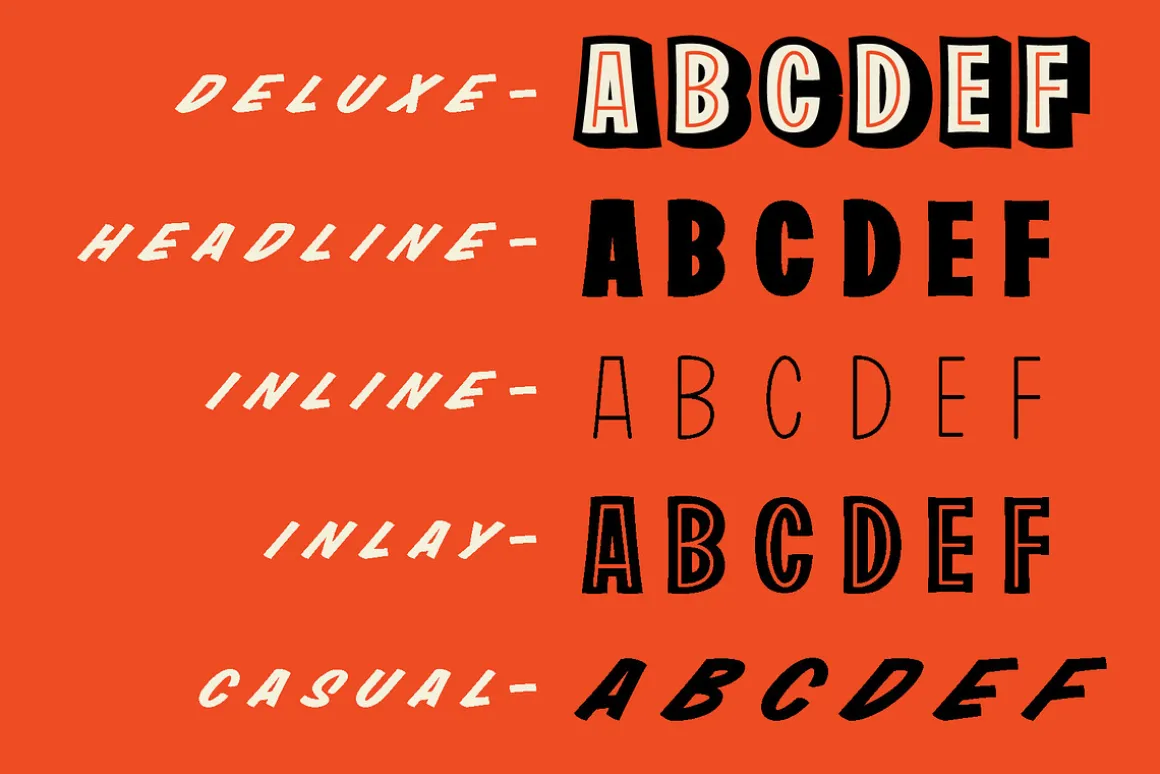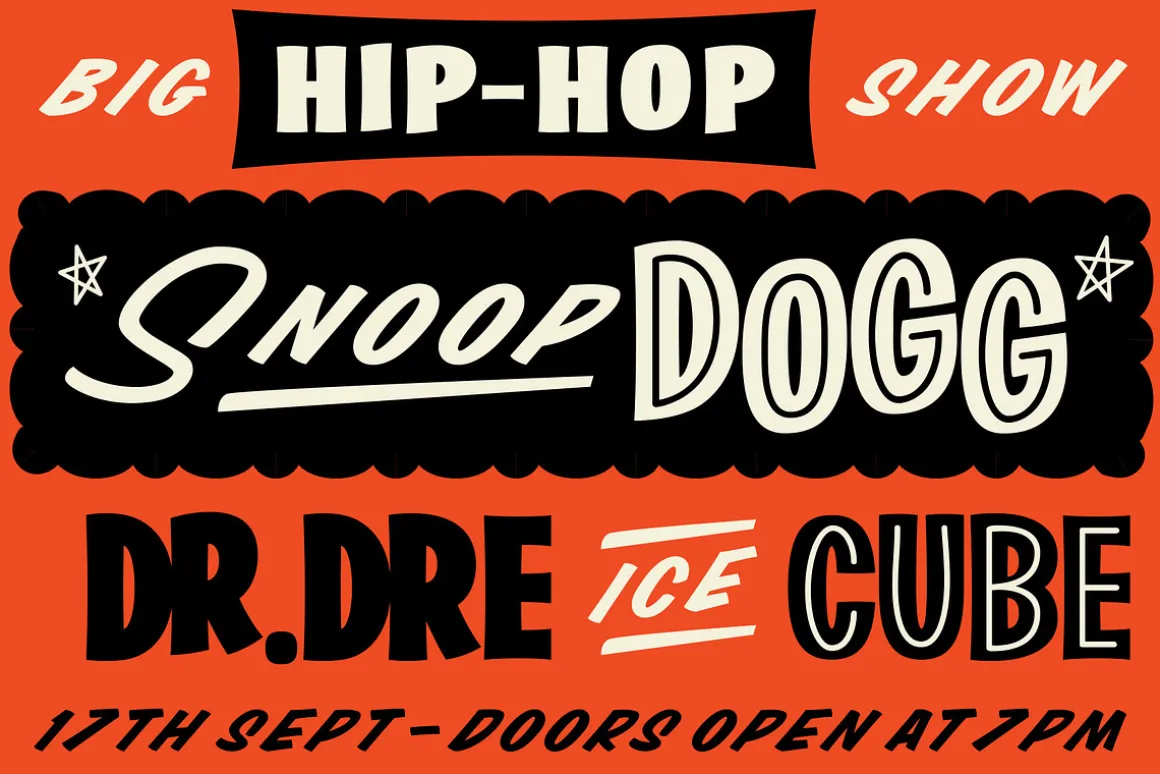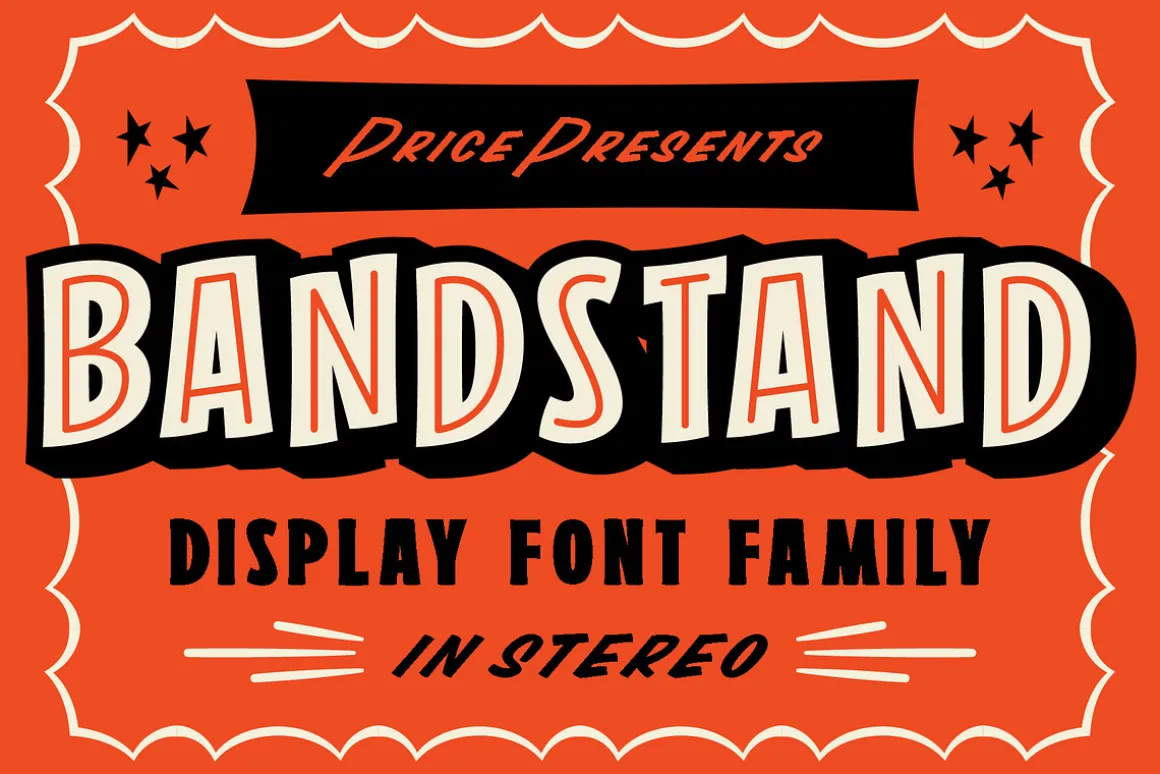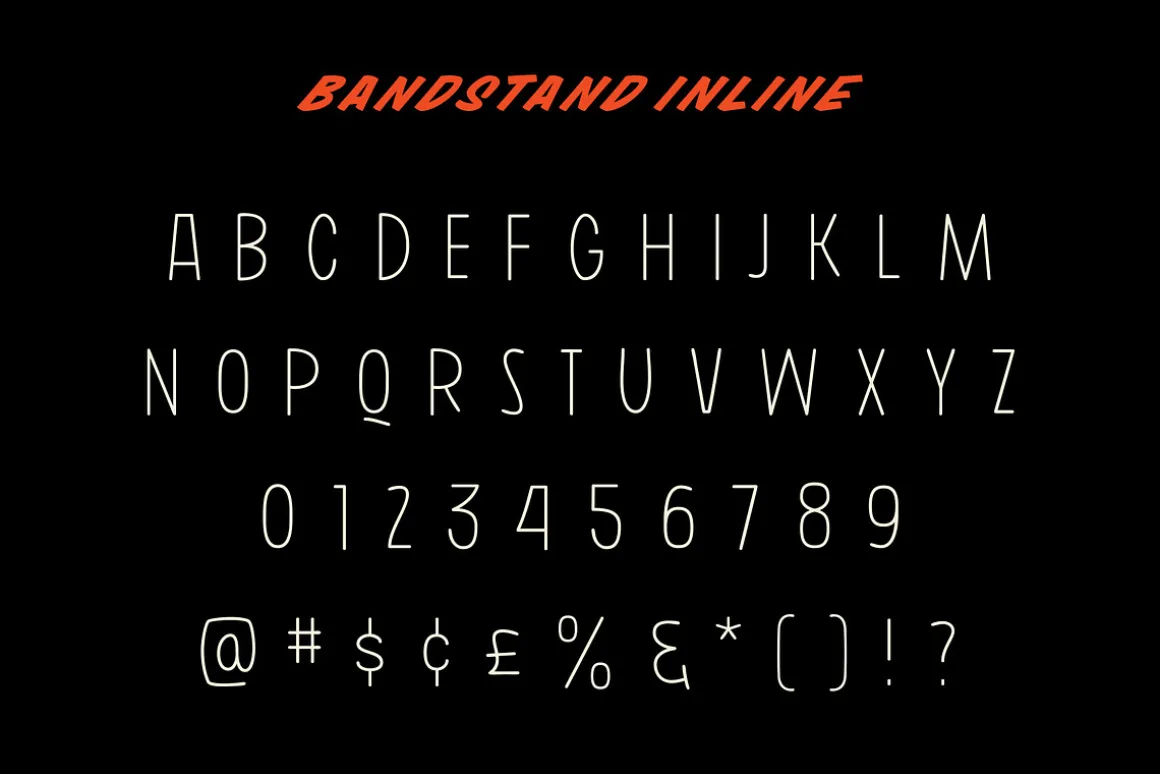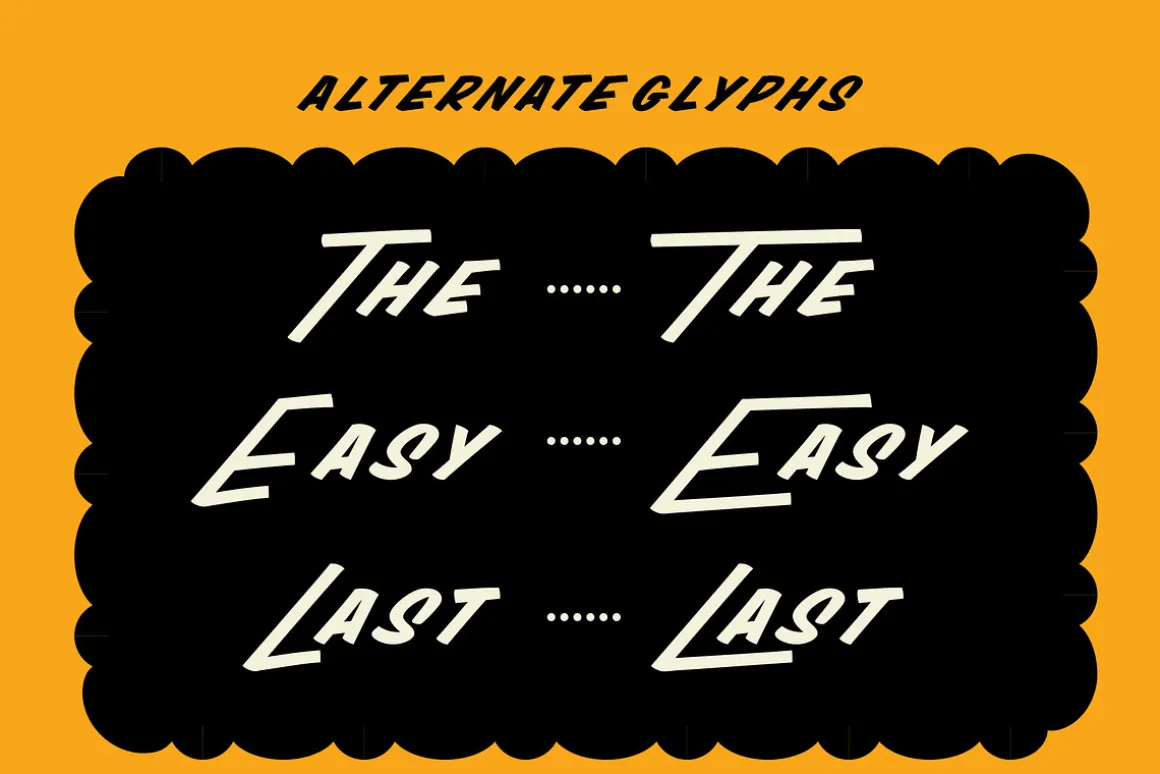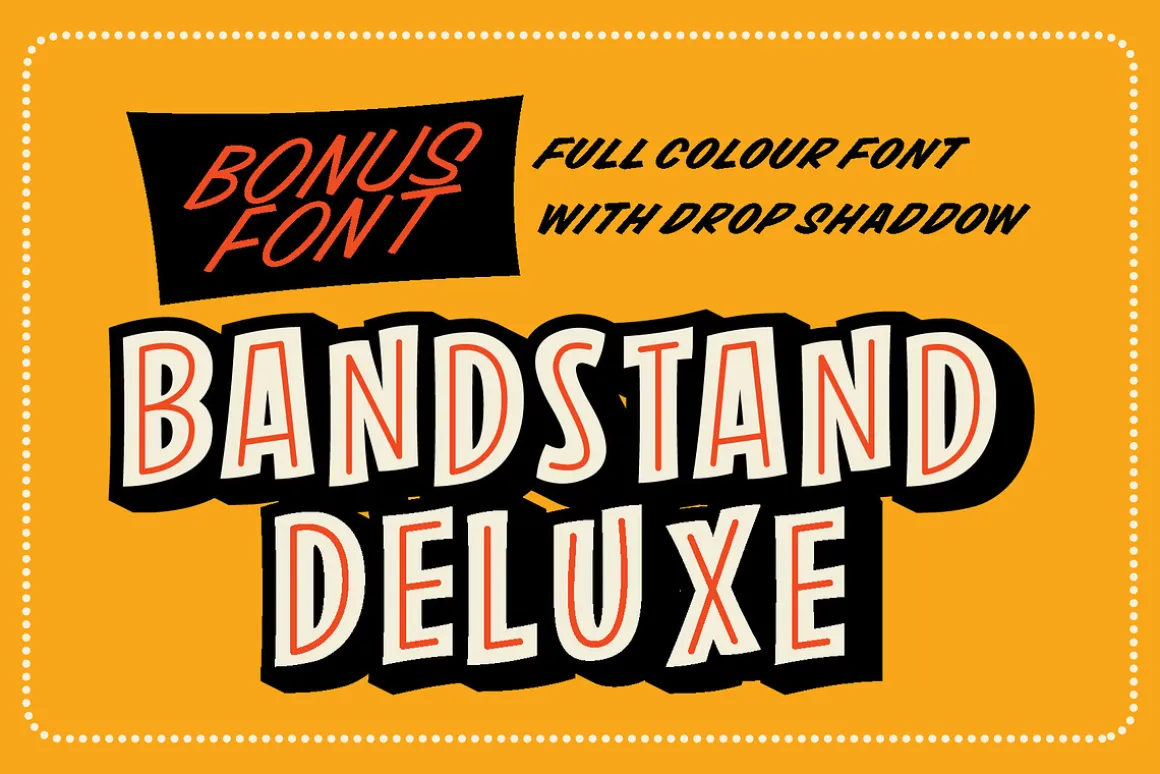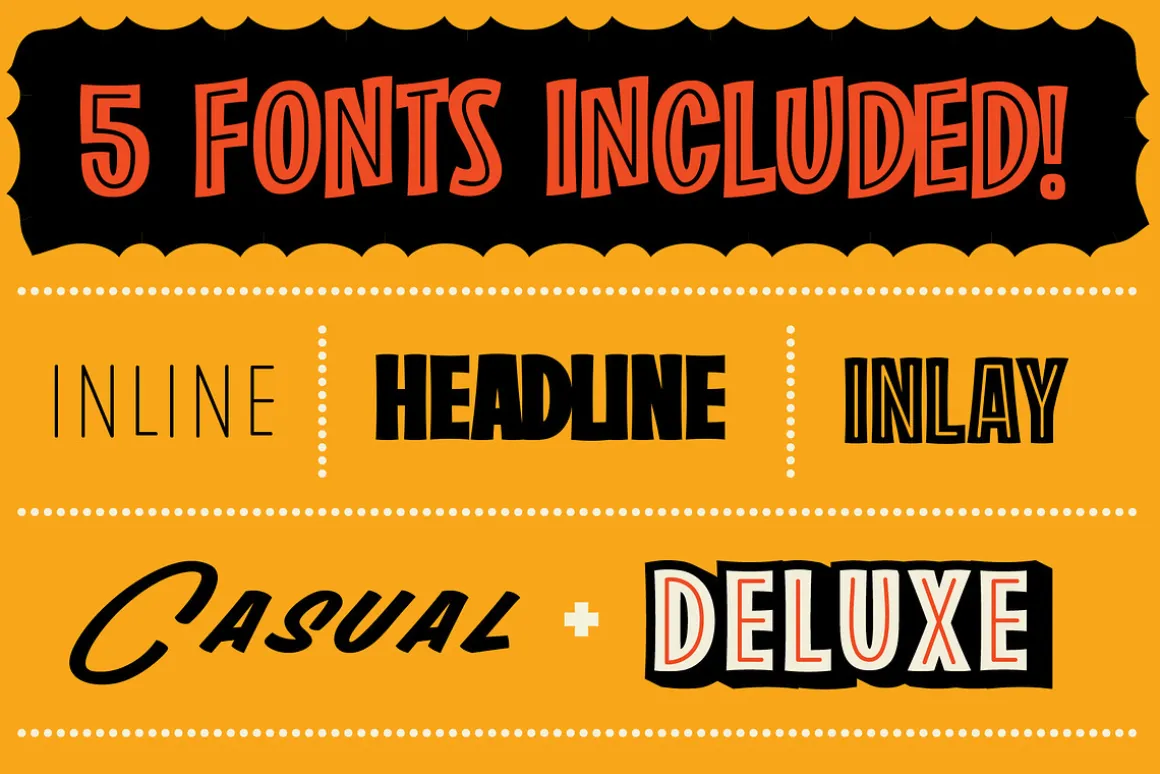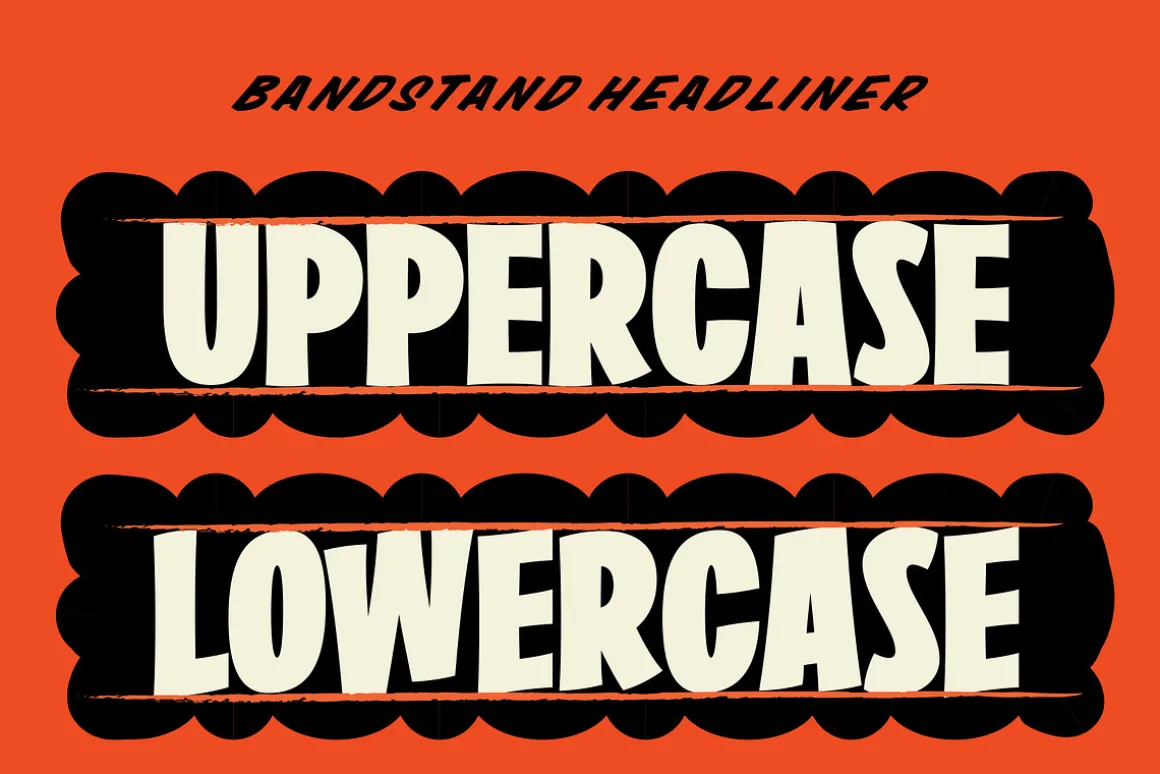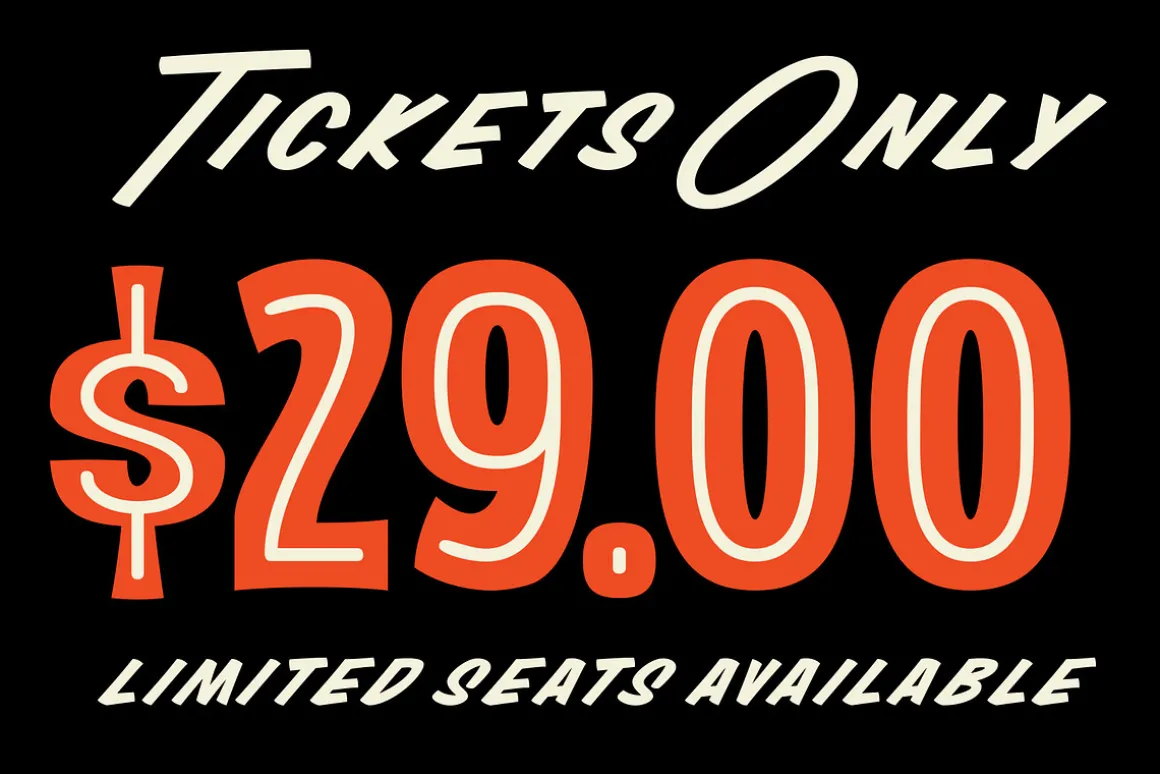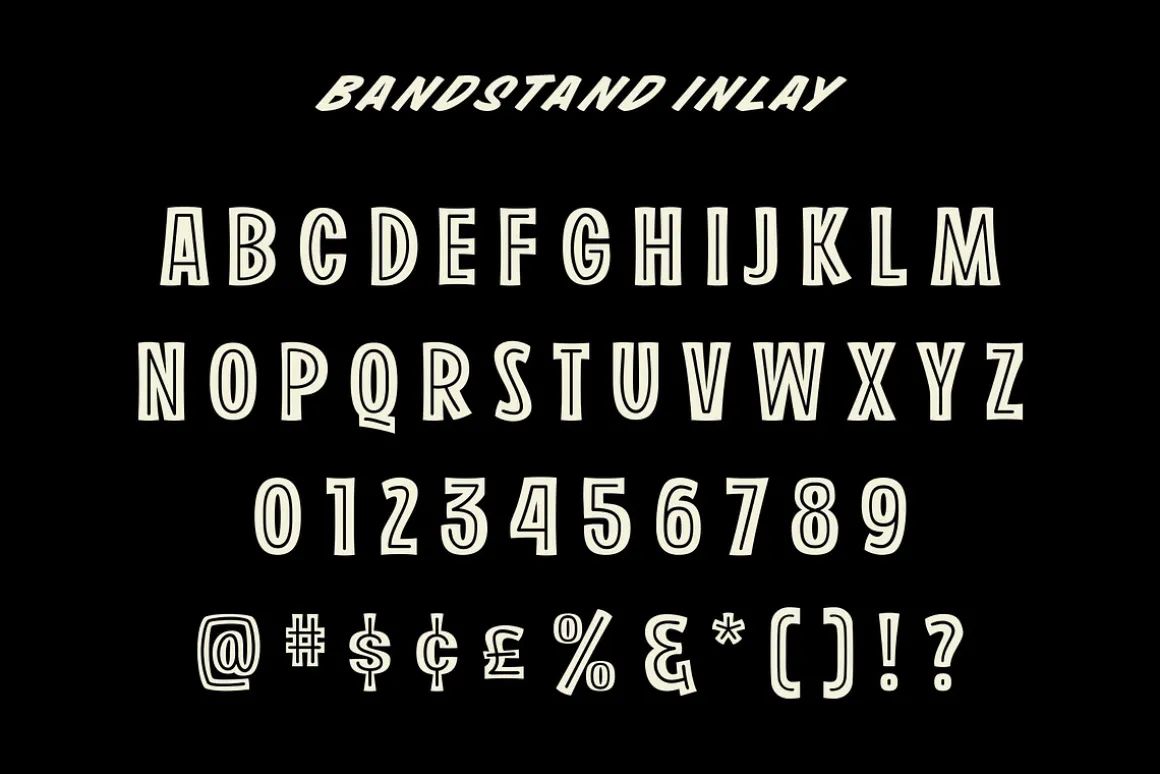
Bandstand is a bold, high-energy font family that channels the rebellious spirit of 1950s rock’n’roll posters while adding a clean, contemporary edge. Inspired by the era’s hand-drawn letterforms and punchy layouts, it captures the raw excitement of jukebox nights, leather jackets, and buzzing amplifiers.